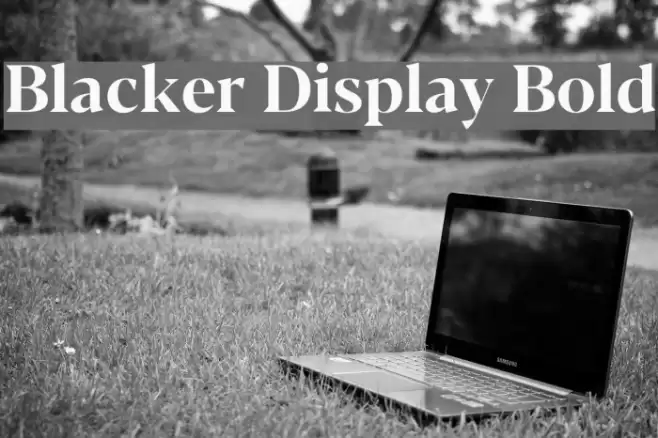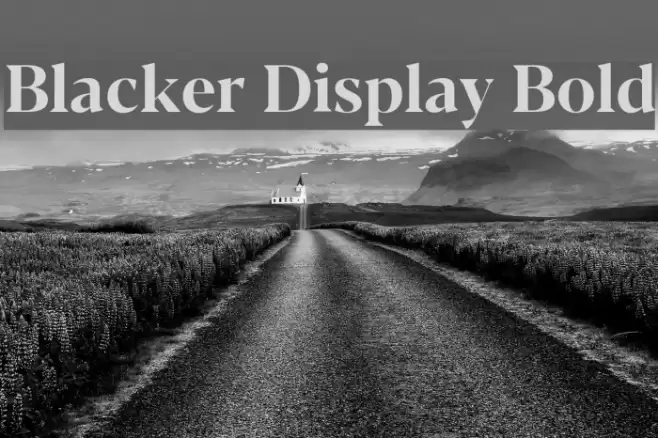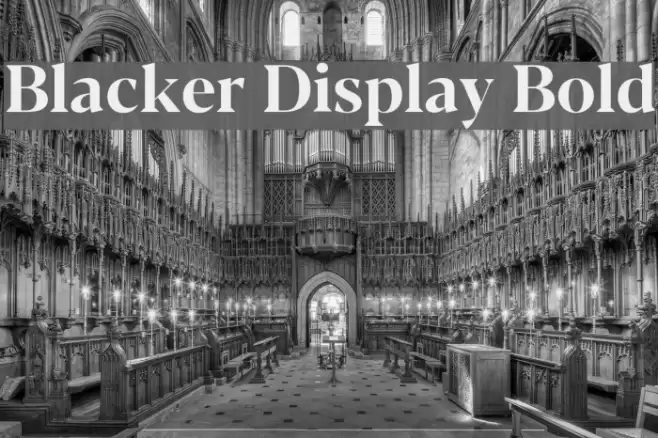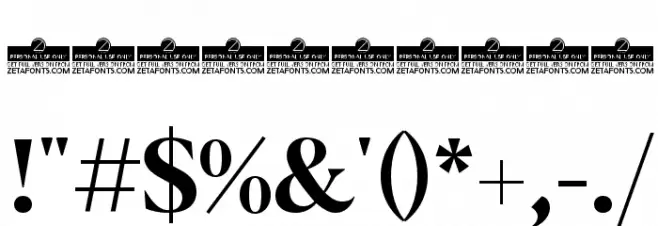
Blacker Display Bold Font
Blacker Display Bold Description
This font exudes a bold and commanding presence, characterized by its thick, robust strokes and high contrast between thick and thin lines. The serifs are pronounced, adding a touch of elegance and authority. The uppercase letters are particularly striking, with a strong vertical emphasis and slightly condensed forms that enhance their impact. The lowercase letters maintain a consistent weight, providing a harmonious balance with the uppercase. The numerals are clear and easily legible, making them suitable for various applications. Special characters are designed with the same attention to detail, ensuring a cohesive look across all glyphs.
A bold, high-contrast serif font with strong vertical emphasis and elegant serifs from Uncategorized fonts.
- Proposed Projects: Ideal for use in headlines, branding, editorial design, and any project requiring a bold, authoritative typeface.